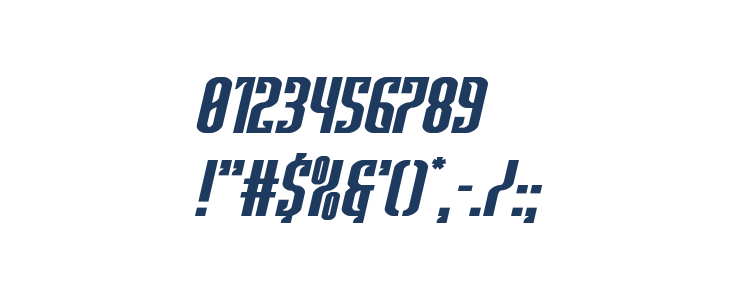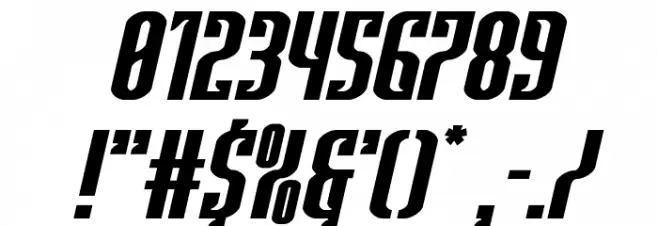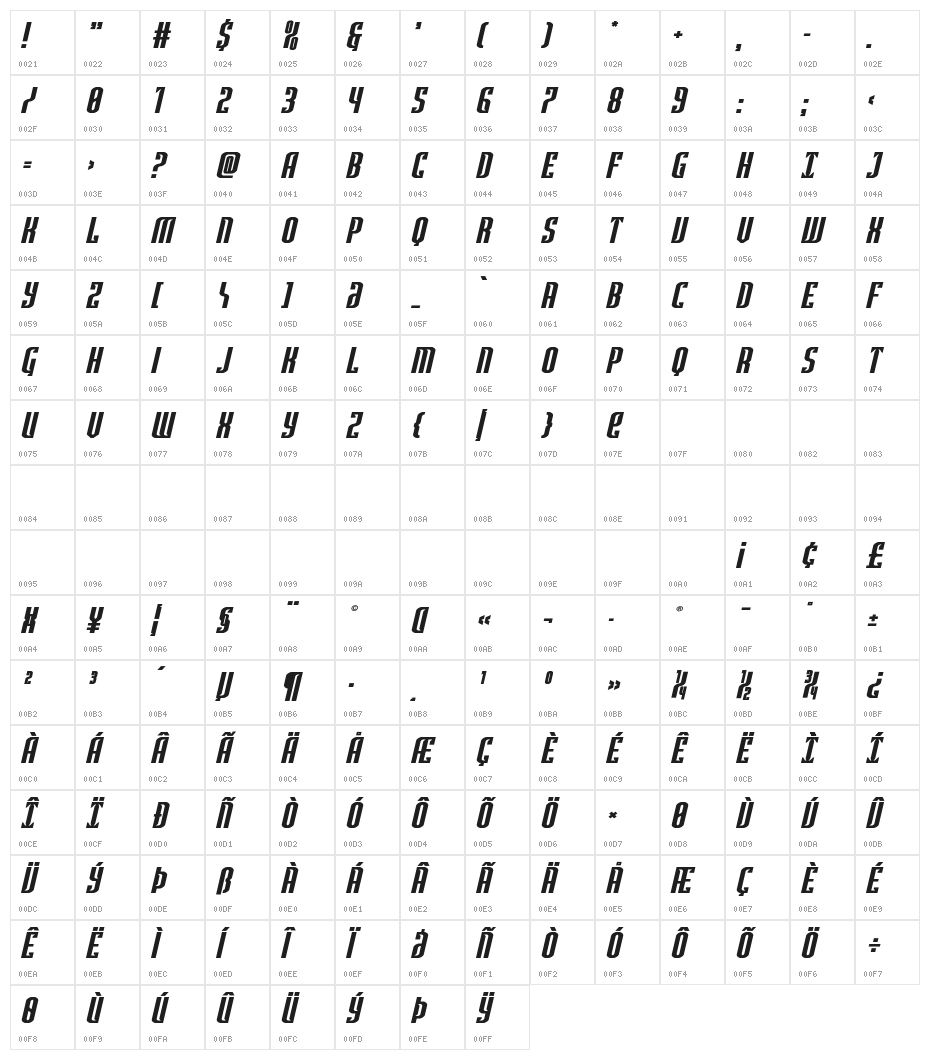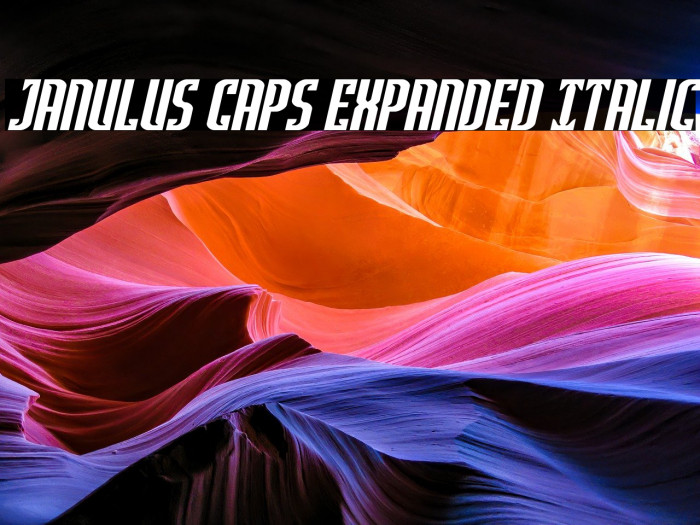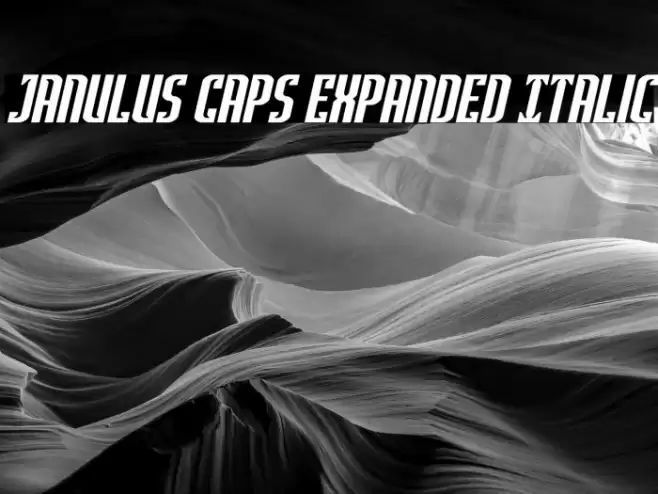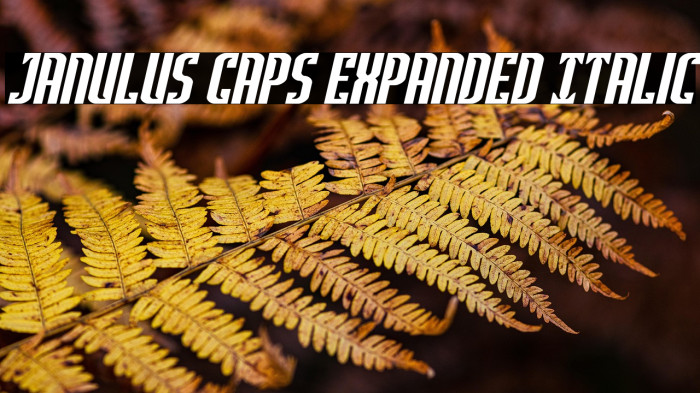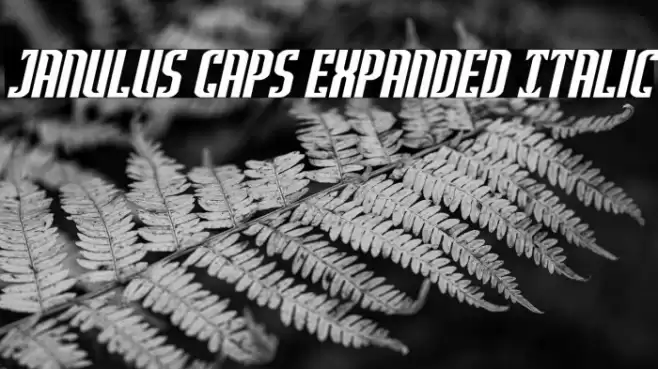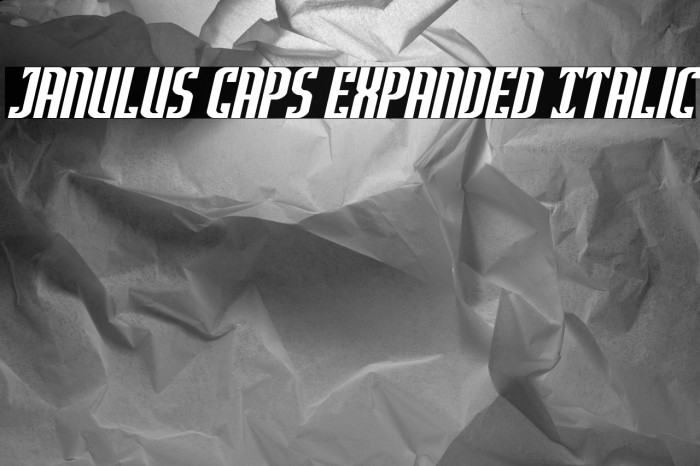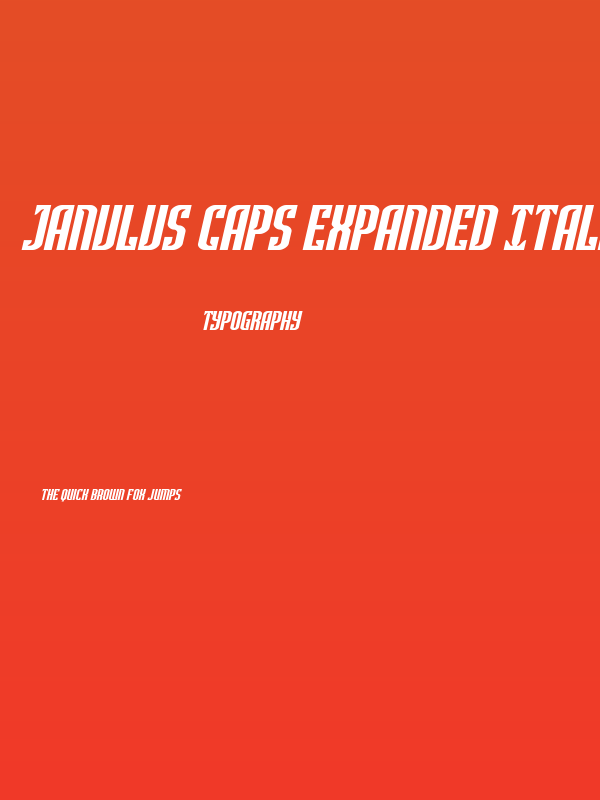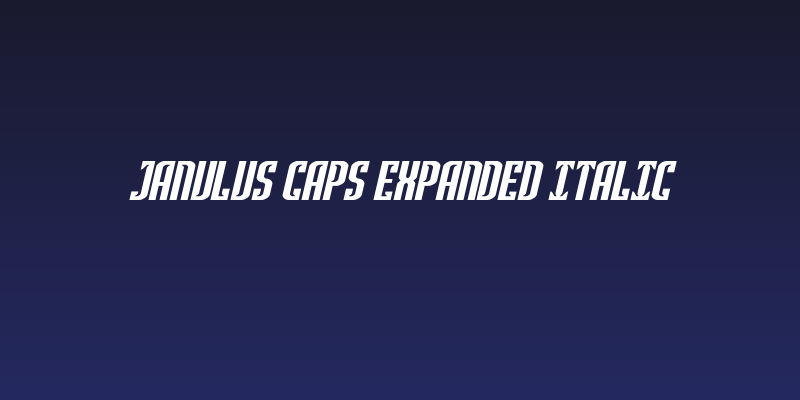
Janulus Caps Expanded Italic Font
Janulus Caps Expanded Italic Description
This font exudes a bold and dynamic presence with its expanded and italicized style. The characters are elongated and slightly slanted, giving a sense of movement and energy. The strokes are thick and consistent, providing a strong visual impact. The uppercase letters are particularly striking, with sharp angles and a modern aesthetic. The numbers and special characters maintain the same boldness, ensuring uniformity across all glyphs. This font is ideal for making a statement, whether in headlines or branding materials.
| Proposed Projects | Ideal for sports branding, dynamic posters, and eye-catching headlines. |